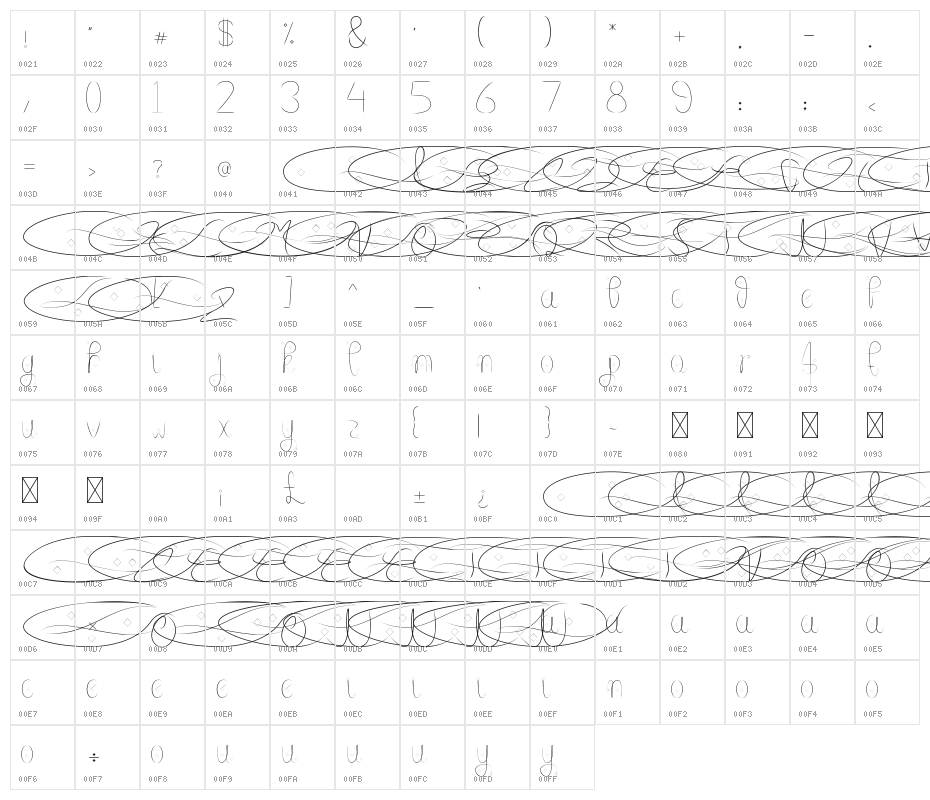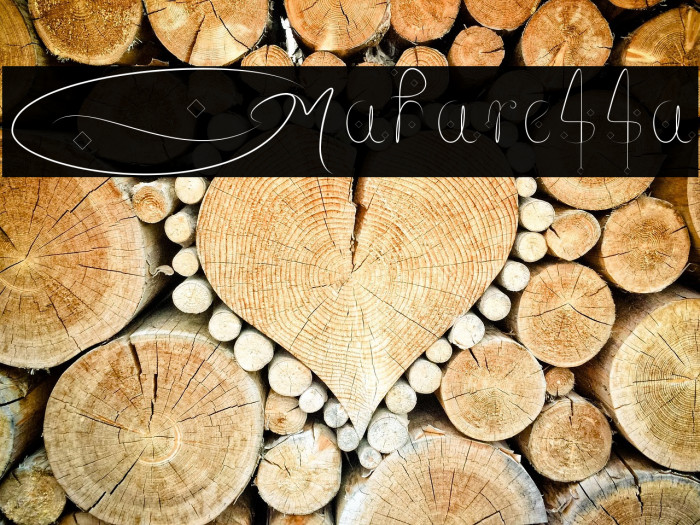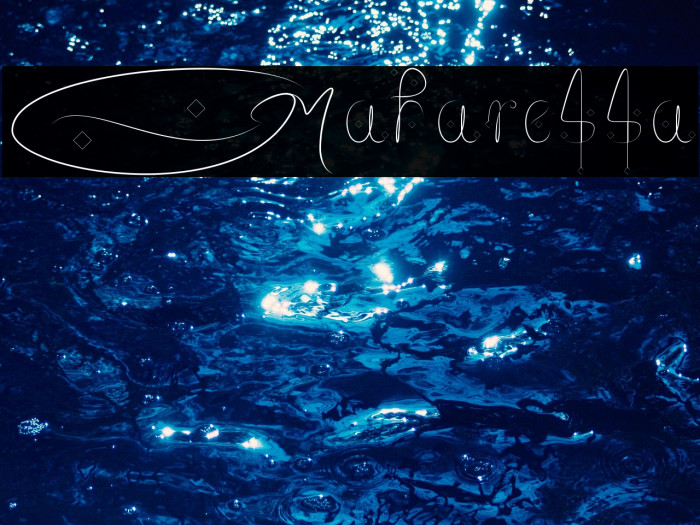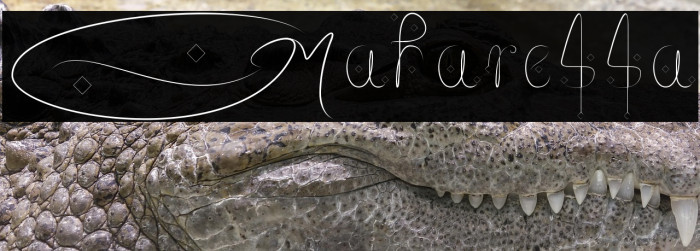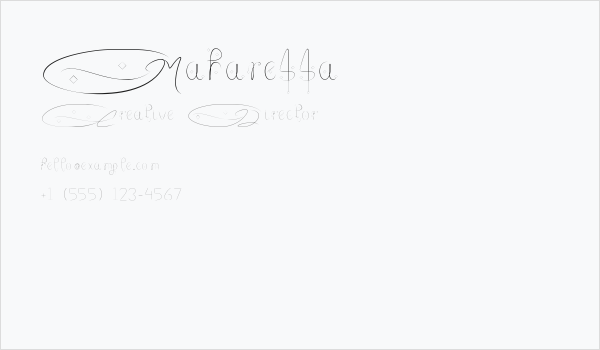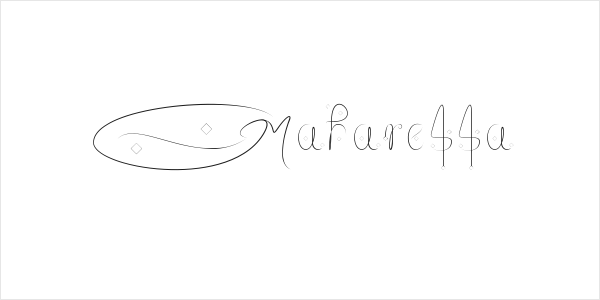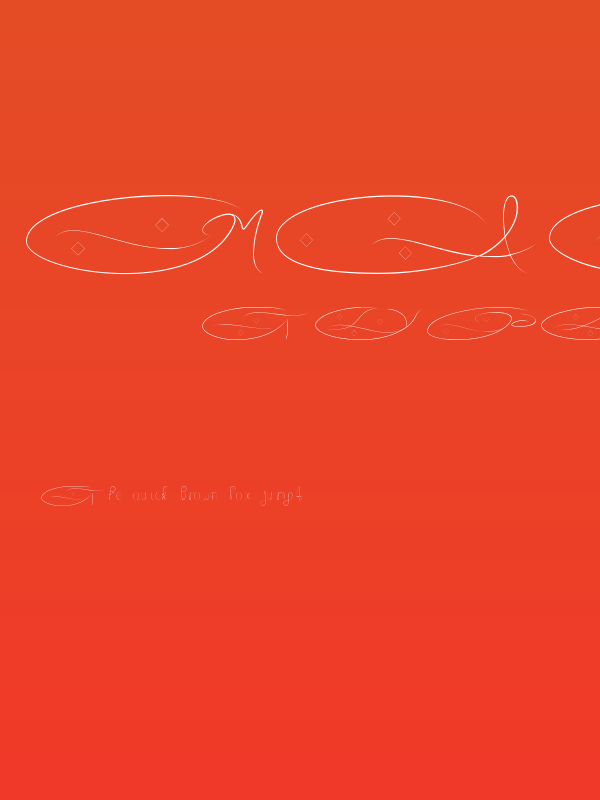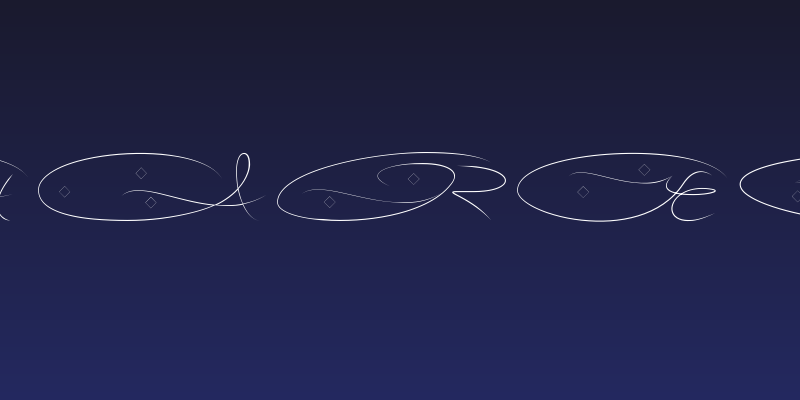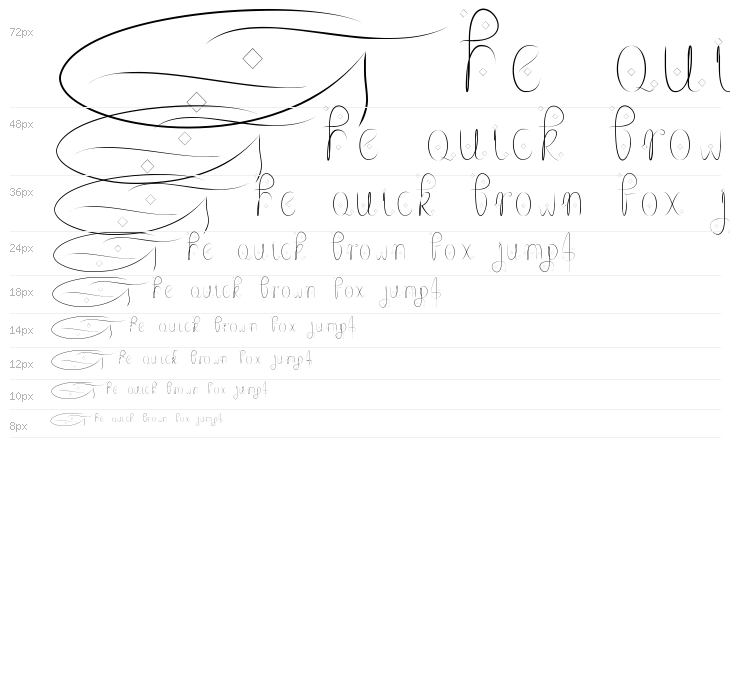
Maharessa Font
Maharessa Description
This font features an elegant and whimsical design, characterized by its thin, flowing lines and delicate curves. Each character is adorned with subtle flourishes, giving it a playful yet sophisticated appearance. The uppercase letters maintain a consistent height, while the lowercase letters exhibit unique loops and swirls, adding to the font's charm. The numerals are clean and straightforward, complementing the overall aesthetic. Special characters are thoughtfully integrated, maintaining the font's cohesive style. This font is perfect for projects that require a touch of elegance and creativity.
| Use Case | Logos, Invitations, Artistic designs |
| Proposed Projects | Ideal for wedding invitations, greeting cards, branding, and artistic projects. |